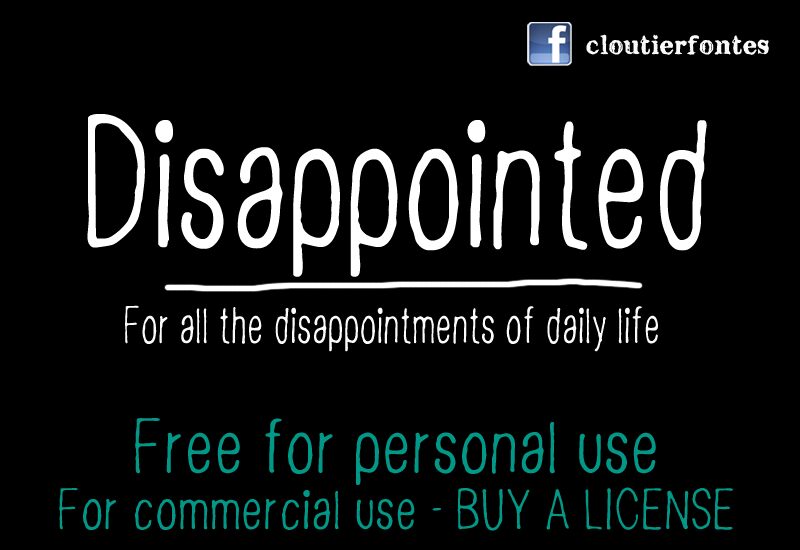
CF Disappointed from CloutierFontes is a free handwritten font with unusually tall, narrow letters and a plain, unpolished manner. Stroke widths shift gently, and rounded joins sit beside abrupt bends and slightly wavering verticals. The loose proportions make the writing look quickly drawn but still controlled.
Indie music posters are its strongest setting. Its stretched forms also suit album artwork, clothing labels, and offbeat event graphics. On merchandise, the lettering can become part of a sketch-like illustration rather than serving only as a caption.
CF Disappointed
CF Disappointed Regular is a font by CloutierFontes, designed by Steve Cloutier in 2013.